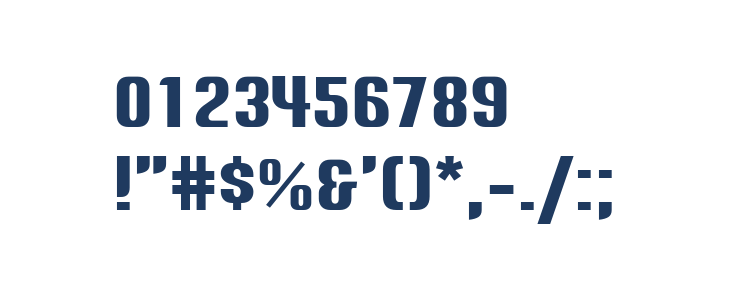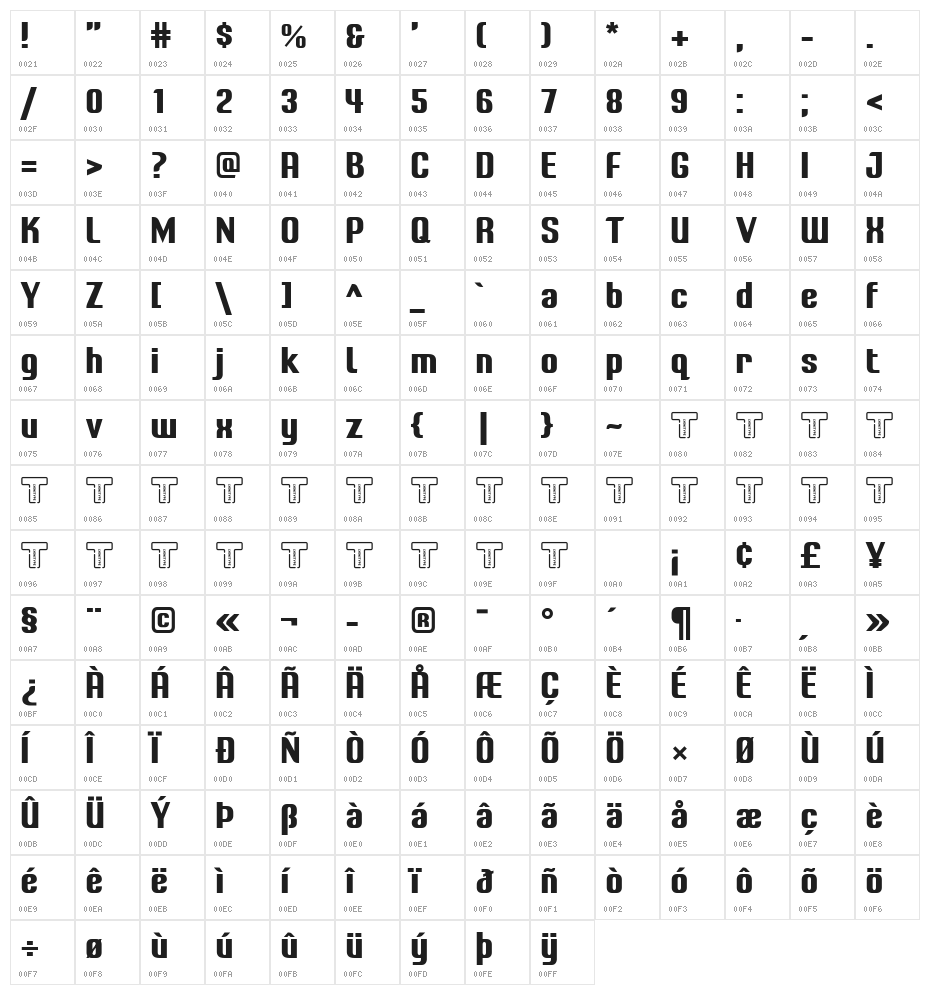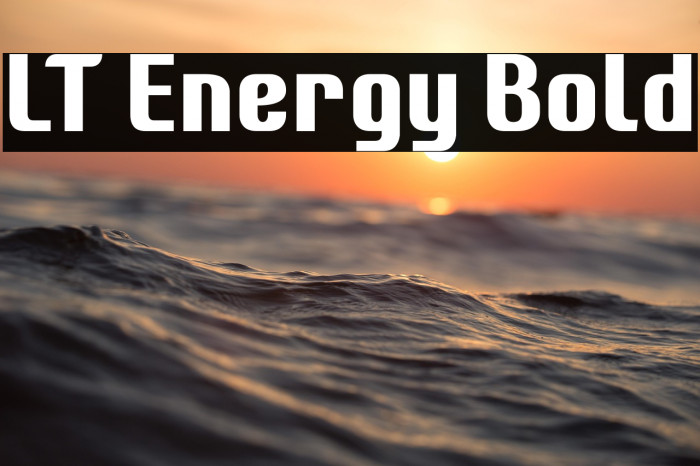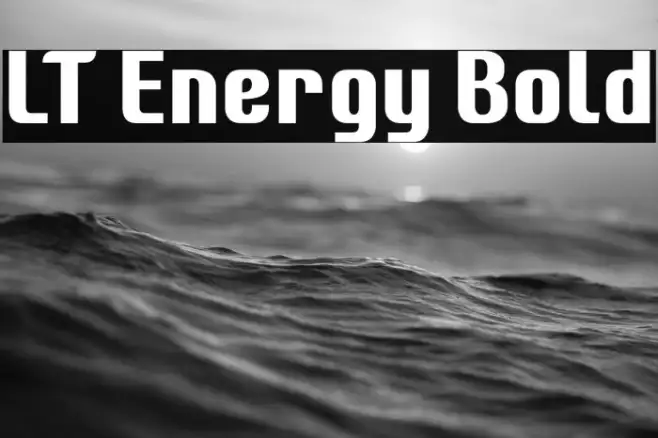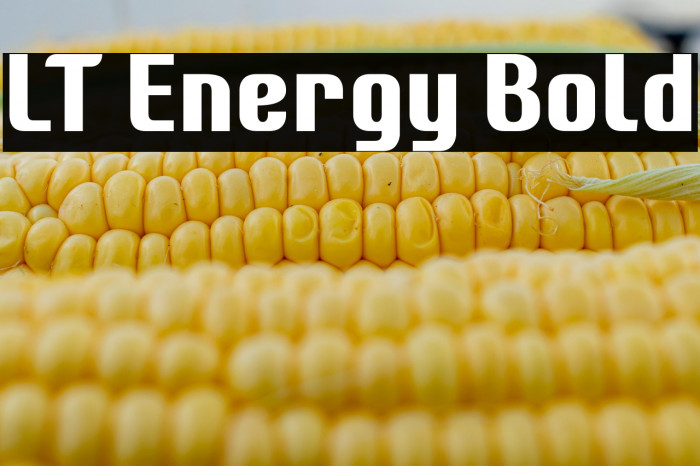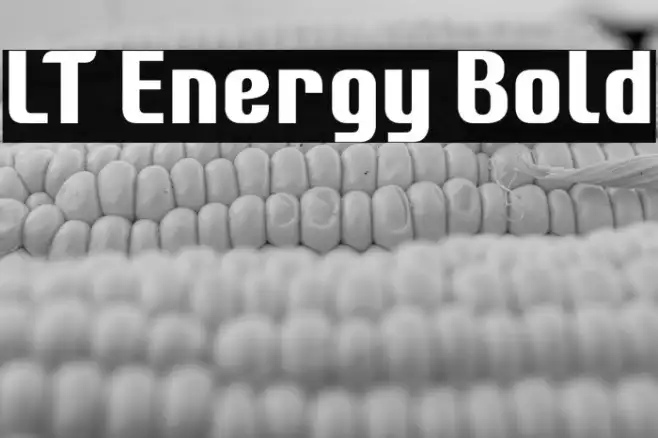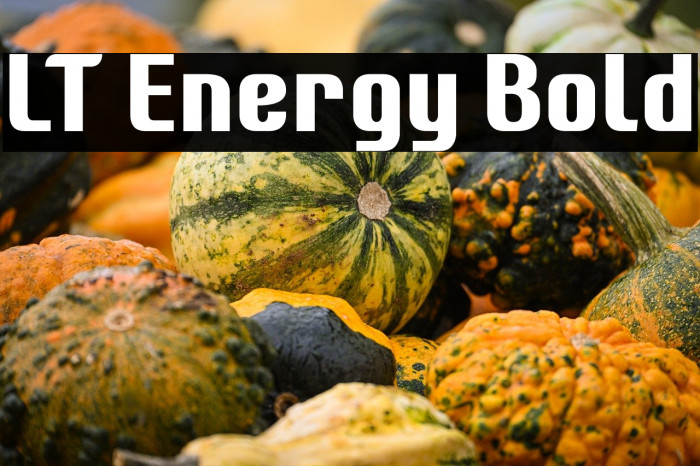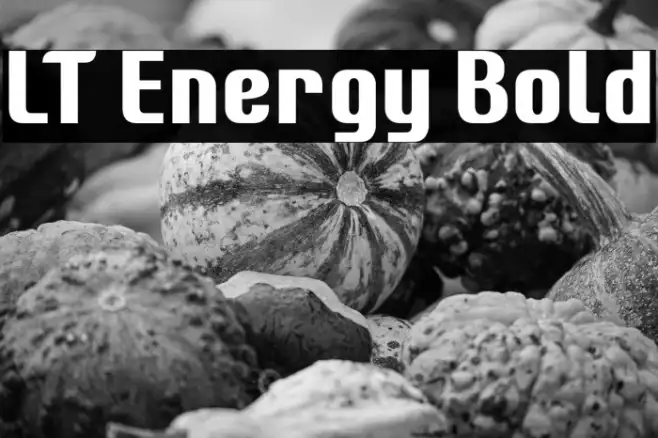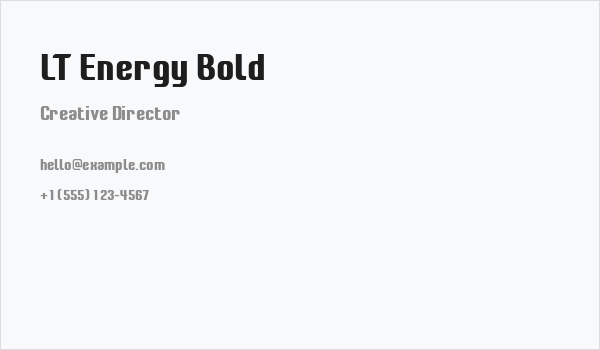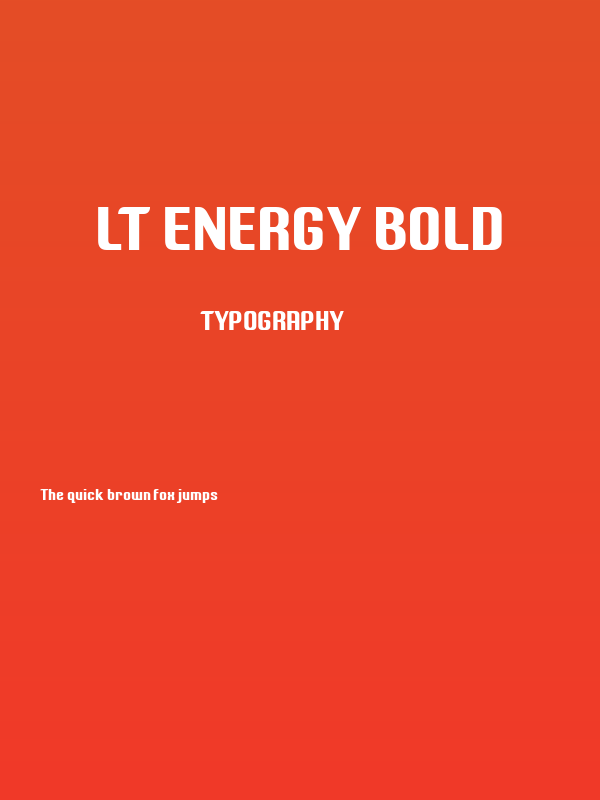
LT Energy Bold Font
LT Energy Bold Description
This bold typeface exudes strength and modernity with its thick, uniform strokes and slightly condensed letterforms. The uppercase letters are robust and commanding, making a strong visual impact. The lowercase characters maintain a consistent weight, ensuring readability while retaining a bold presence. The numerals are clear and well-defined, matching the overall bold aesthetic. Special characters are designed with the same attention to detail, providing a cohesive look across all glyphs. The font's geometric structure and clean lines make it suitable for a variety of design applications.